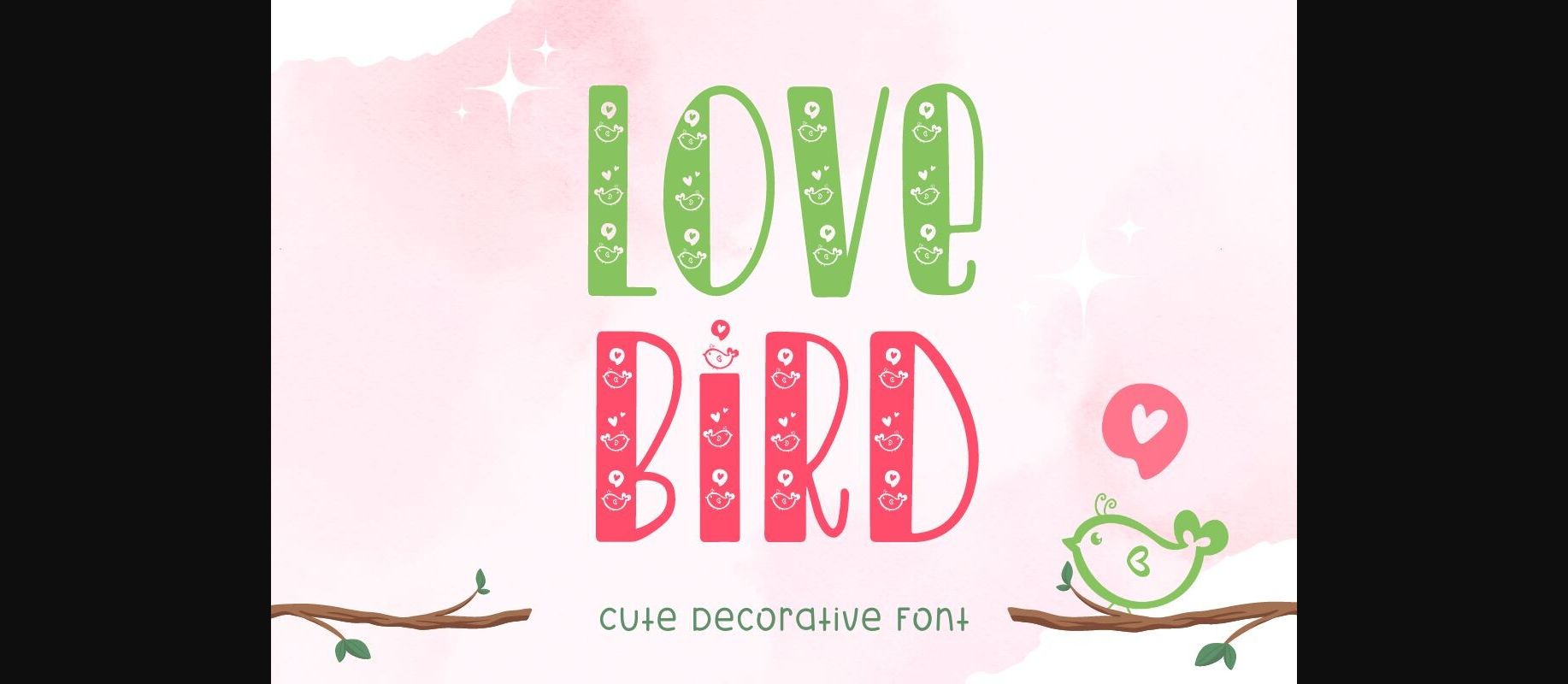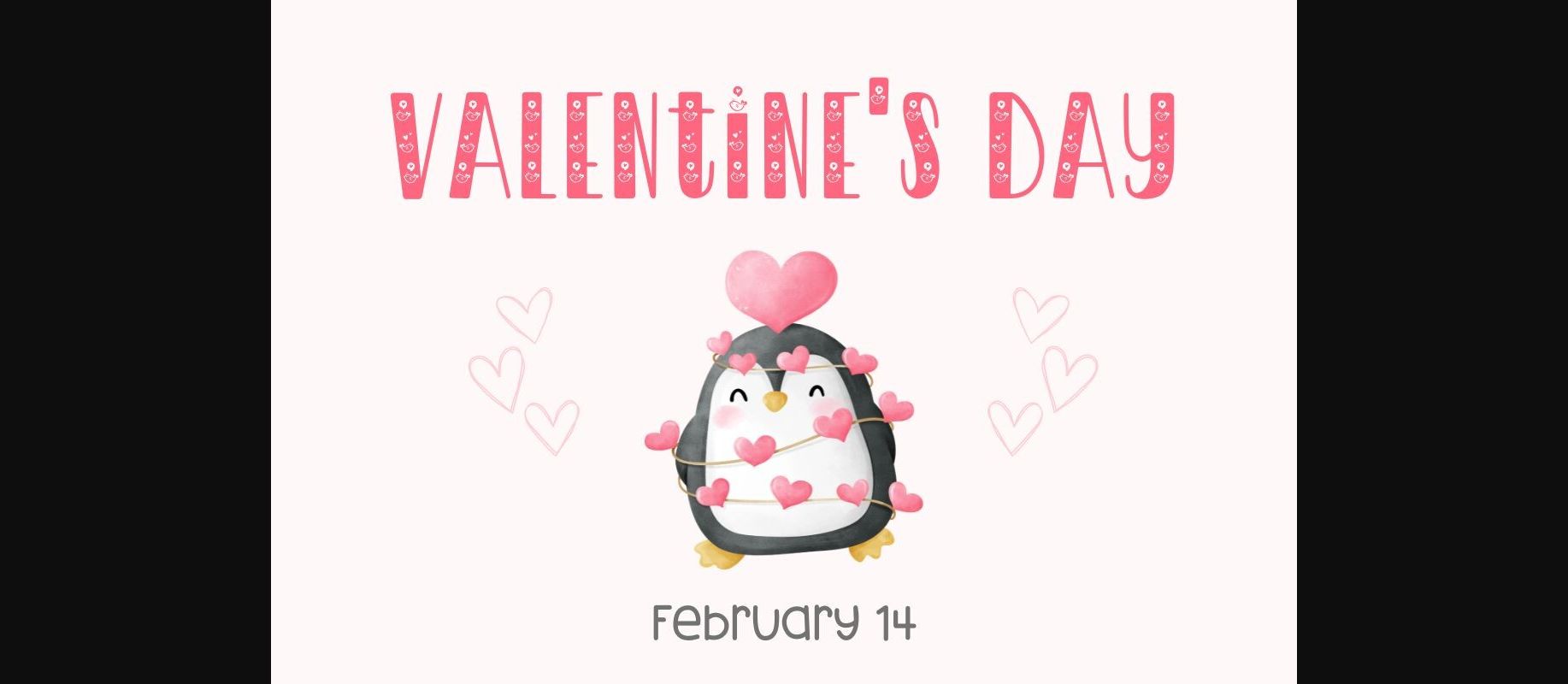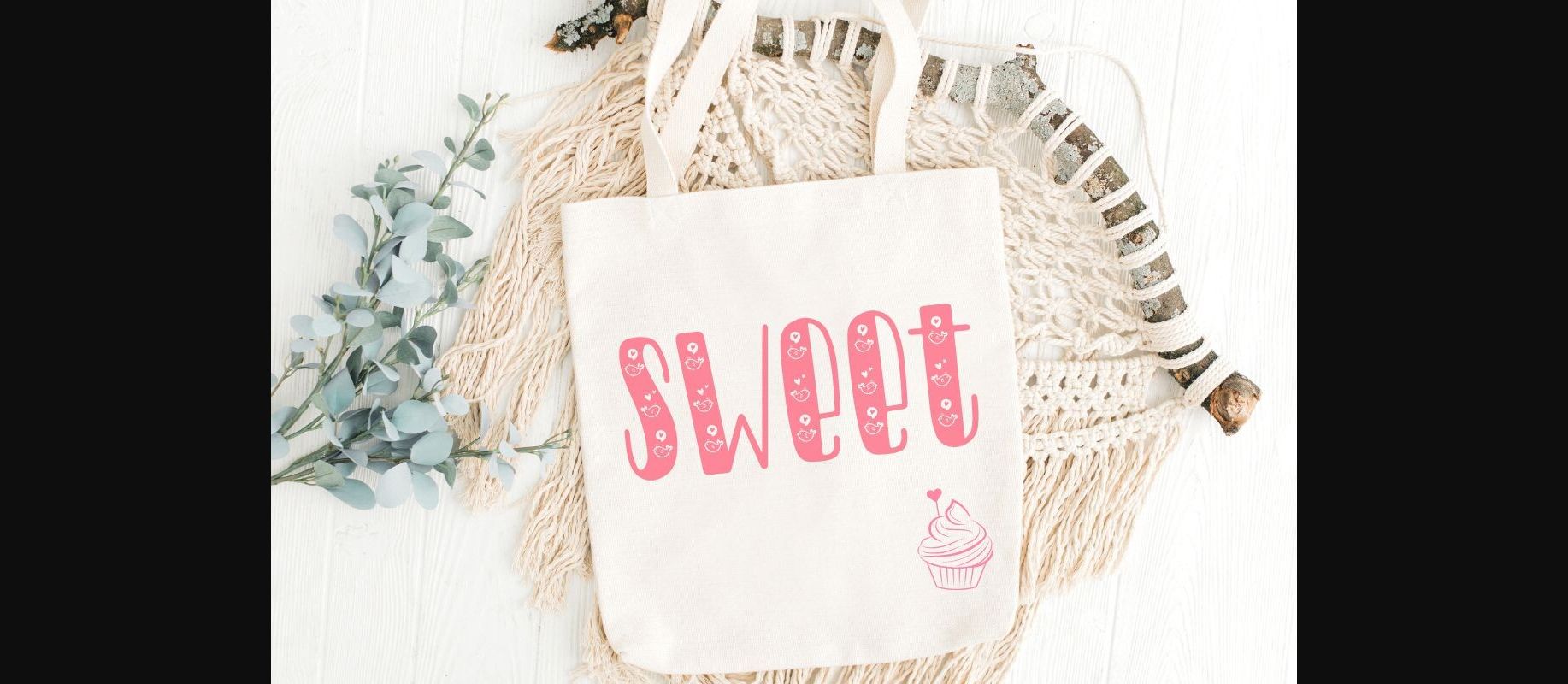
About Lovebird Font
Lovebird is a cute decorative font. This font uses cute bird and heart silhouettes combined with handwritten fonts. This font has a quirky style. Perfect for creating a wide variety of new designs to match products such as banners, content, mugs, cards, shirts, stationery, social media posts, and more!